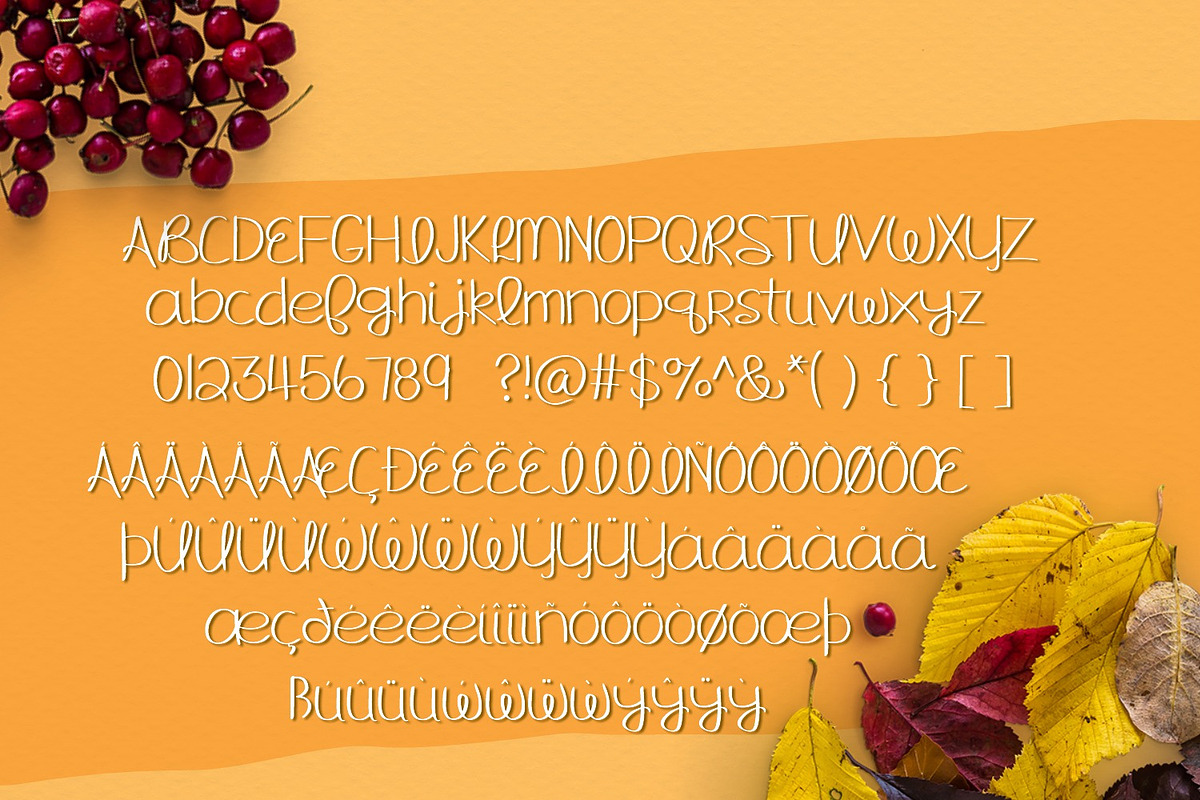
UPDATED! Hello Fall Handwritten Font
UPDATED! Hello Fall Handwritten Font by Sabrina Schleiger Design is a font selected for branding, posters, packaging, typography.
Why UPDATED! Hello Fall Handwritten Font is worth a look
UPDATED! Hello Fall Handwritten Font by Sabrina Schleiger Design fits naturally into Branding, posters, packaging, typography.